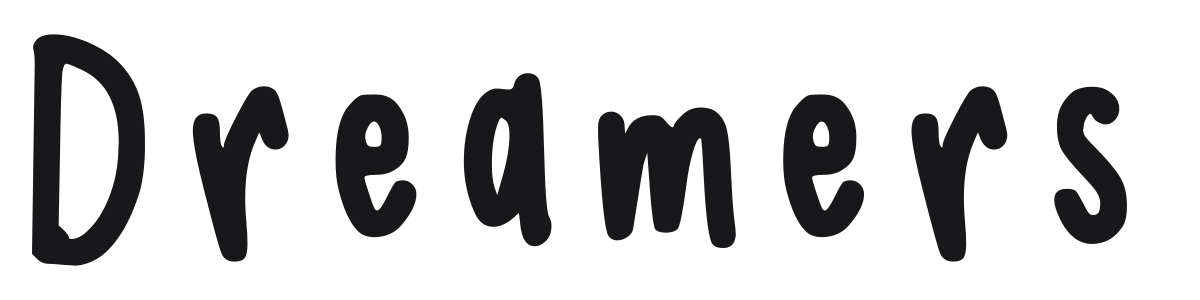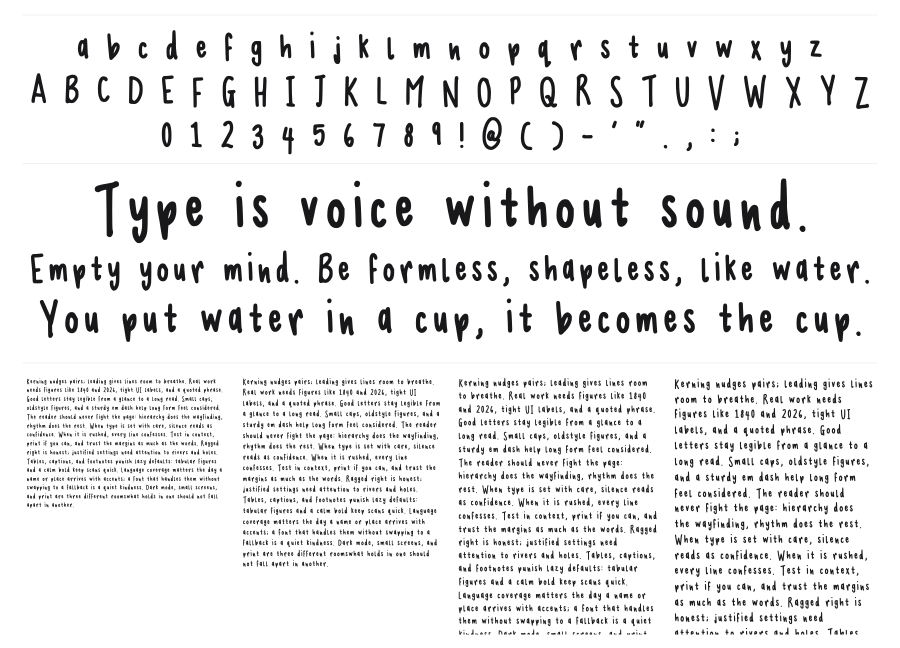
Dreamers
by Shari
Dreamers is a casual upright handwritten font drawn in the style of a thick felt-tip marker. The rounded terminals and subtle irregularities in stroke width give it a genuine hand-crafted quality that feels personal rather than manufactured. It works well for social media graphics, packaging, and any context where warmth and approachability matter.